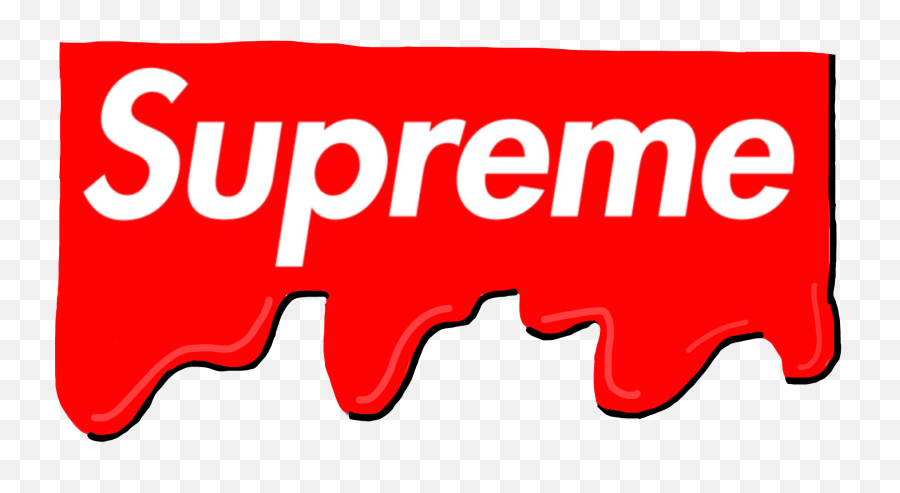
Supreme Logo Font: Introduction
Far more than vaccine-colour-scheme, typography has a direct and highly significant correlation to identity. Supreme is at the top in the world of streetwear when it comes to instantly recognizable fonts. The simplicity of the Supreme logo typography creates a great example of how even a simple font can build up massive cultural significance. Exquisite in its garish red box boldly outlined in virulently white, the Supreme logo has evolved from a mere logo of some brand to a brand image of street fashion, coveted exclusivity, and its cult-of-superstition-like hype.
In this article, we’ll explore all aspects of the Supreme logo font, discussing its history, main features, the impact on culture, and alternative fonts. To designers, typographers, or brand builders, this article will shed light on the imaginative genius behind one of today’s most recognizable logos of contemporary fashion.
Overview: What Is the Supreme Logo Font?
Supreme’s logo uses Futura Heavy Oblique as its font. Paul Renner created the geometric sans serif typeface in 1927 and later altered it with extra versions. Supreme chose the oblique (italicized) heavy version of Futura with a bold, bright red box as a stylistic decision based on the art of concept artist Barbara Kruger.
The first impression of the logo is often that of minimalism, precisely due to its simplicity and rigorous design approach, that it so powerful. It provides simplicity, firmness and also a clear urban identity.
History Of Supreme Logo Font
The Birth of Supreme
James Jebbia launched the operation of Supreme in 1994 from New York City. Starting off as a humble Manhattan skate shop, it quickly became a huge niche on the global fashion scene. In spite of the intense interest spurred by the brand’s fashion items and unique drops, the iconic logo contributed to Supreme’s unique visual identity in streetwear.
Influence of Barbara Kruger
A lot of style that the Supreme logo has is based on Barbara Kruger, the artist famous for his catchy artwork with white Futura typography on red rectangles. Her emphasis on power, commodity culture, and identity reveals much affinity with a brand like Supreme which is a consumerist’s paradise.
Kruger has conceded the similarity, but she has not pedido legal recourse. She talked straight about Supreme’s logo, calling it “a ridiculous bundle of uncool figures”, but this also contributes to ironic charm of the brand.
Brand Recognition Through Typography
An eccentric, showy font wasn’t essential to Supreme. Choosing Futura Heavy Oblique, a traditional font, Supreme made its brand understood as a combination of modernism, nonconformism, and thoughtful minimalism. It is a perfect example of how to do minimalism flawlessly.
Key Features of the Supreme Font (Futura Heavy Oblique)
Understanding the typography used in the Supreme logo requires a look at the key characteristics of Futura Heavy Oblique:
1. Geometric Design
Futura illustrates a sans-serif font with geometric design. Its letters design depends on the basic shapes cnrcles, triangles, and squares which creates a sense of symmetry and perfection.
2. Bold and Italicized
The heavy weight makes the letters thick and impactful, while the oblique style introduces a forward-leaning dynamism—perfect for a brand rooted in movement and street culture.
3. All Caps Usage
Supreme uses uppercase letters only, which emphasizes authority and uniformity. This makes the logo loud and assertive without relying on decorative elements.
4. Tight Letter Spacing
Tightly kerned lettering is used in the logo with a minimum space between the letters. With the logo maintaining a tight kerning style, it becomes easier to read and remains clear anywhere, from tees to signage.
Practical Applications of the Supreme Logo Font
The font’s effectiveness is not just theoretical—it shines in real-world usage.
1. Logo and Branding
Supreme applies the font within a red rectangle, creating an iconic logotype that is instantly recognizable even without context. It’s a masterclass in minimalism.
2. Apparel Design
From hoodies and T-shirts to skateboards and accessories, the Supreme logo font is used across all merchandise. It maintains visibility and impact at any scale.
3. Collaborations
Supreme is famous for collaborations with brands like Nike, Louis Vuitton, and The North Face. In nearly all of these, the Supreme logo remains untouched, underscoring the typeface’s strength and consistency.
4. Digital and Print Media
The font’s versatility makes it suitable for both digital campaigns and print media. Whether on Instagram ads or limited-edition lookbooks, the Futura typeface performs reliably.
Supreme Font Alternatives: Fonts That Capture a Similar Vibe
Whether you’re working on a fashion brand or a bold streetwear project, you may want to consider alternatives that evoke a similar tone. Here are a few solid options:
Supreme coupled modernist typography and artistic components to create a logo that attracts youthful, rebellious, and stylish populations. If you happen to be either branding or going deep on the connection between typography and identity, then the Jessica Supreme font is a powerful illustration of how certain design items, such as fonts, can add cultural meaning.